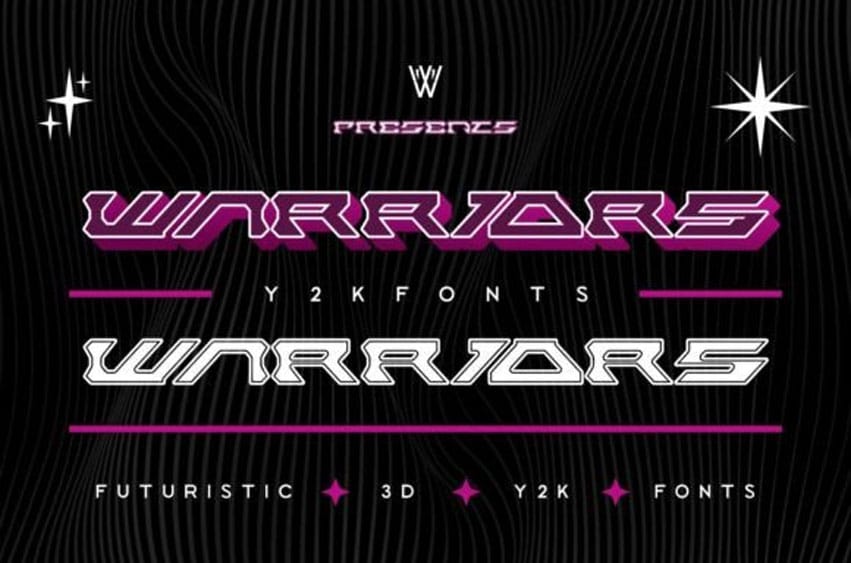
Warriors Font is a display font with a futuristic and cyberpunk-style impression, making it very suitable for poster designs that tend to use the Y2K Style.
It is perfect for use on posters, cards, social media, web design and so much more.